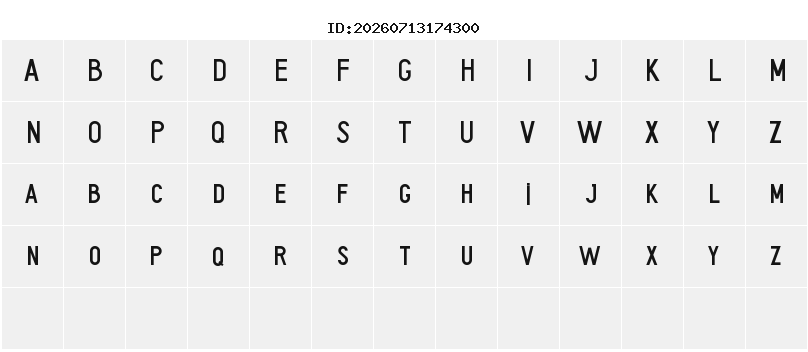
• Font Name: Bal
• Full Font Name: Bal
• Designer: Caglayan Zorlu
• Manufacturer: ikioda: design.office
About Bal.ttf
Bal.ttf is a modern, elegant sans-serif font designed for ultimate readability and visual harmony. Perfect for branding, headlines, web design, and print materials.